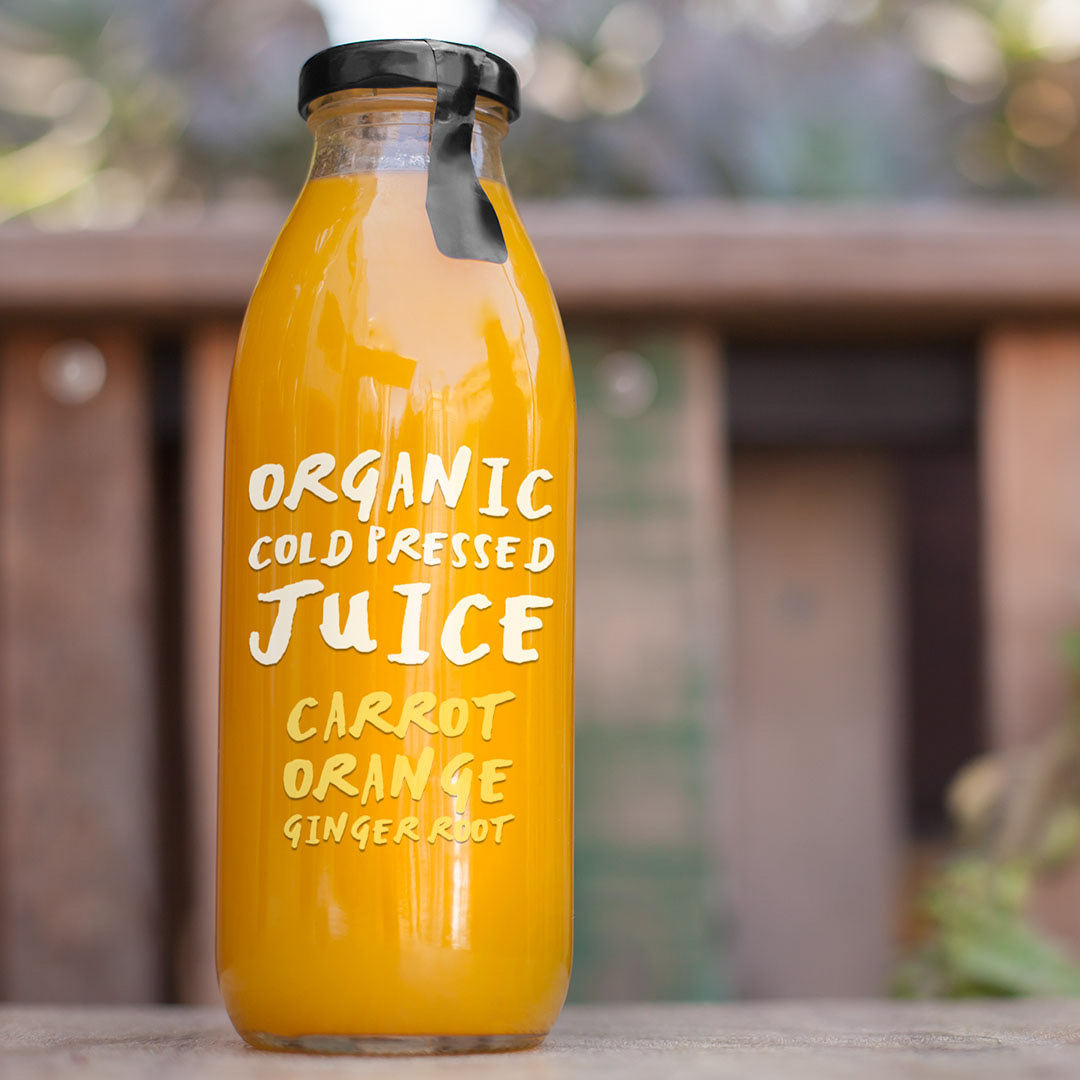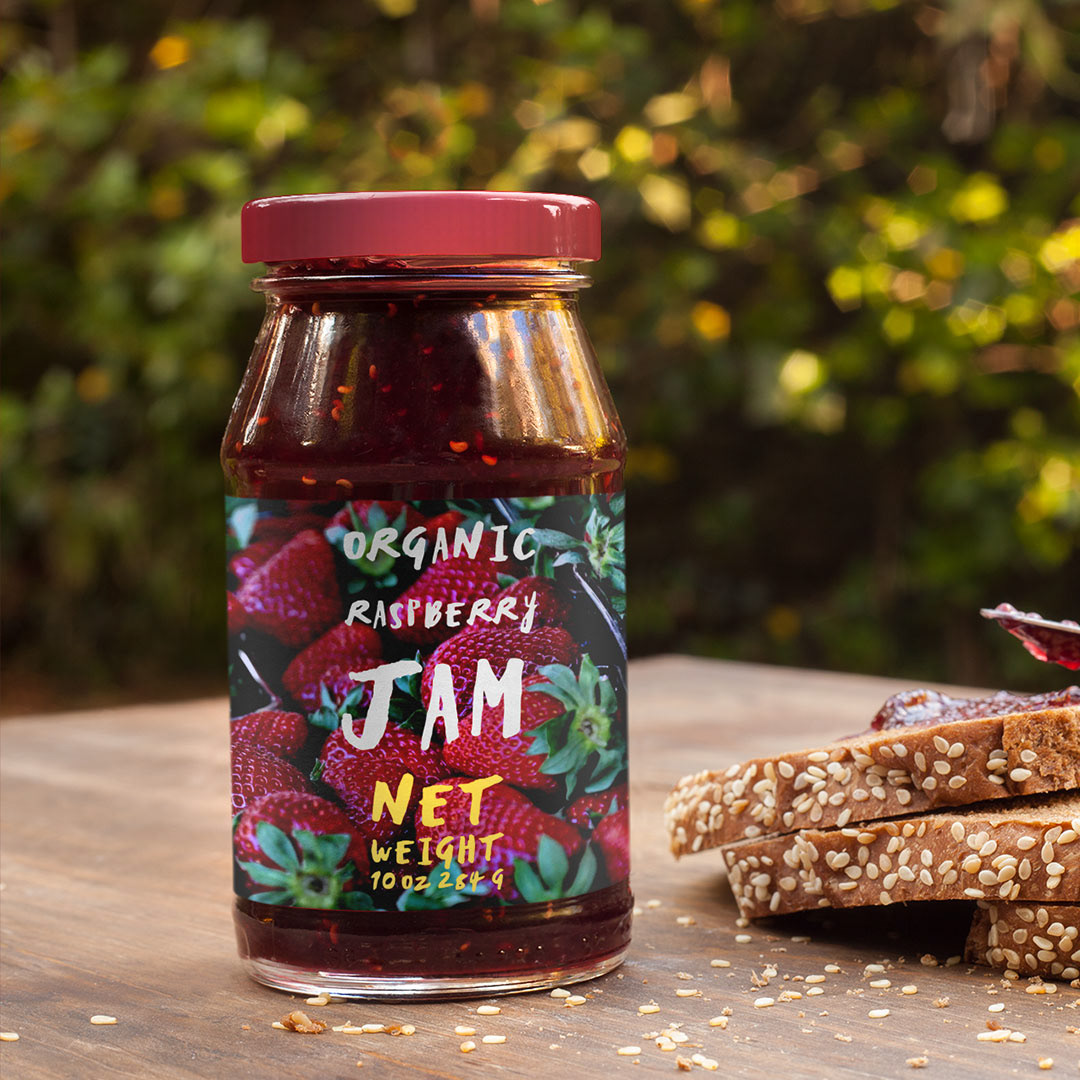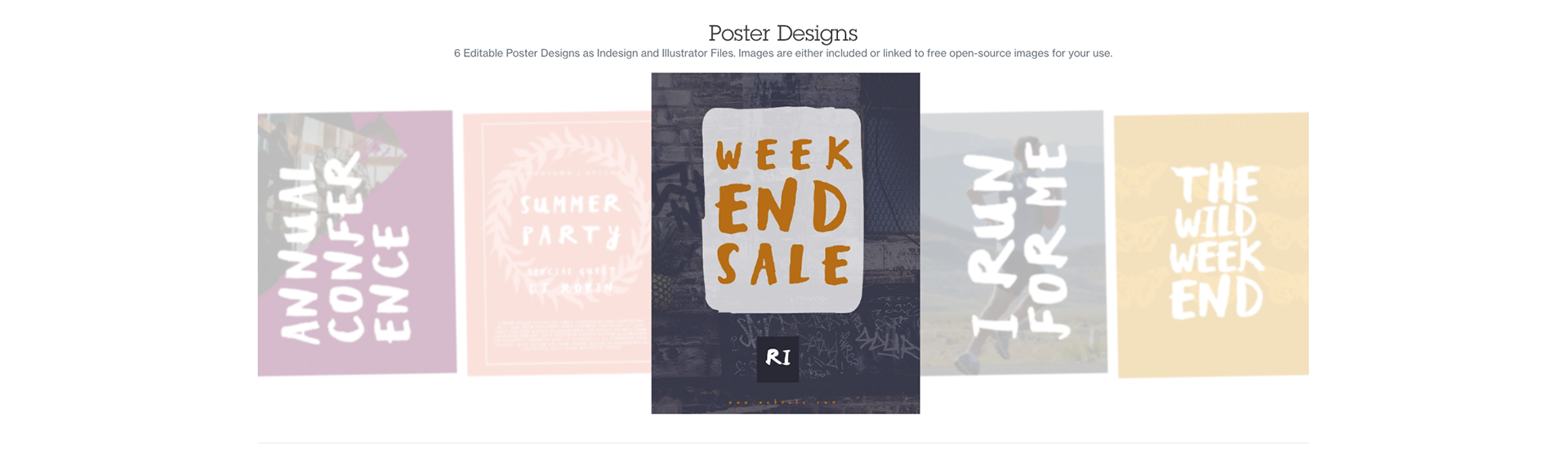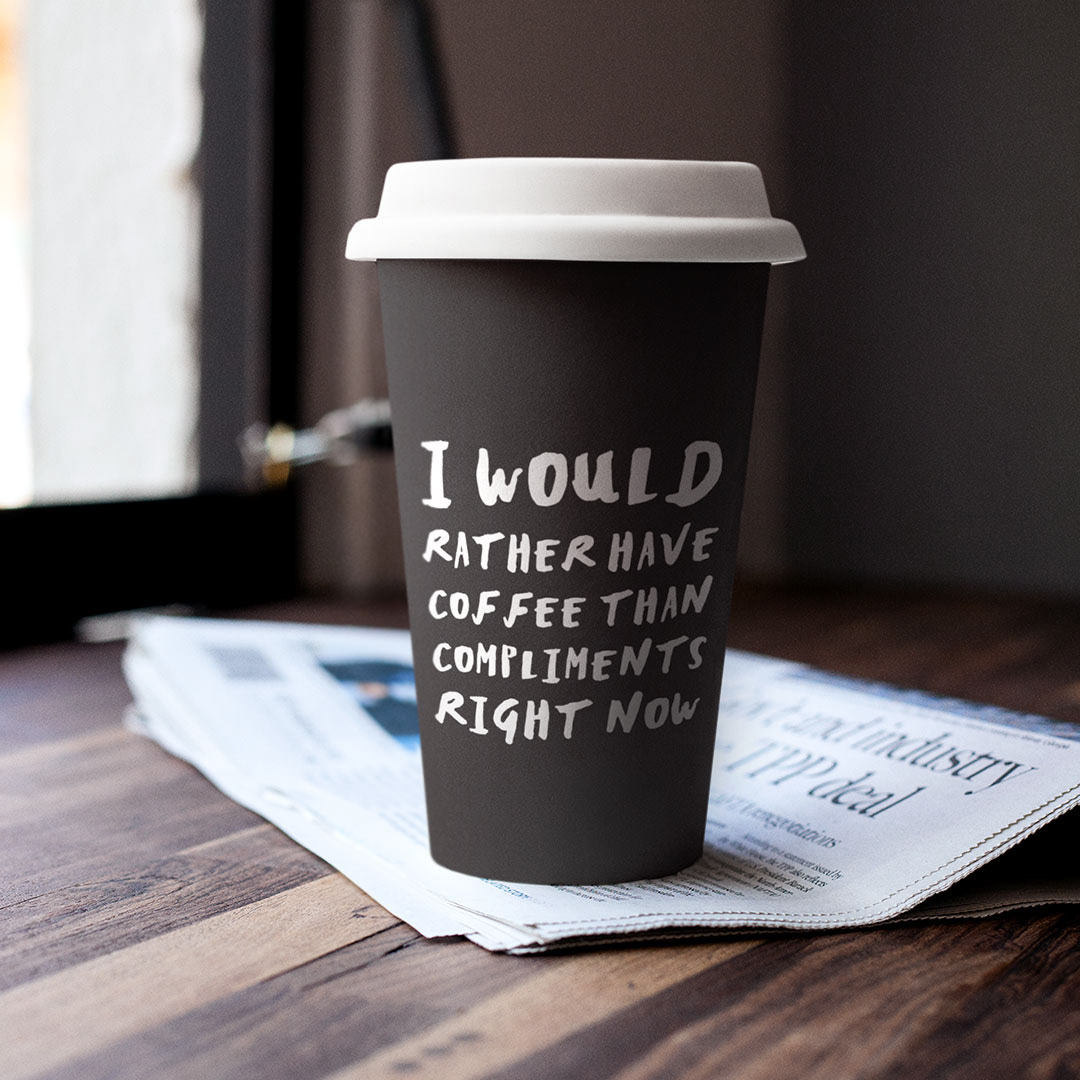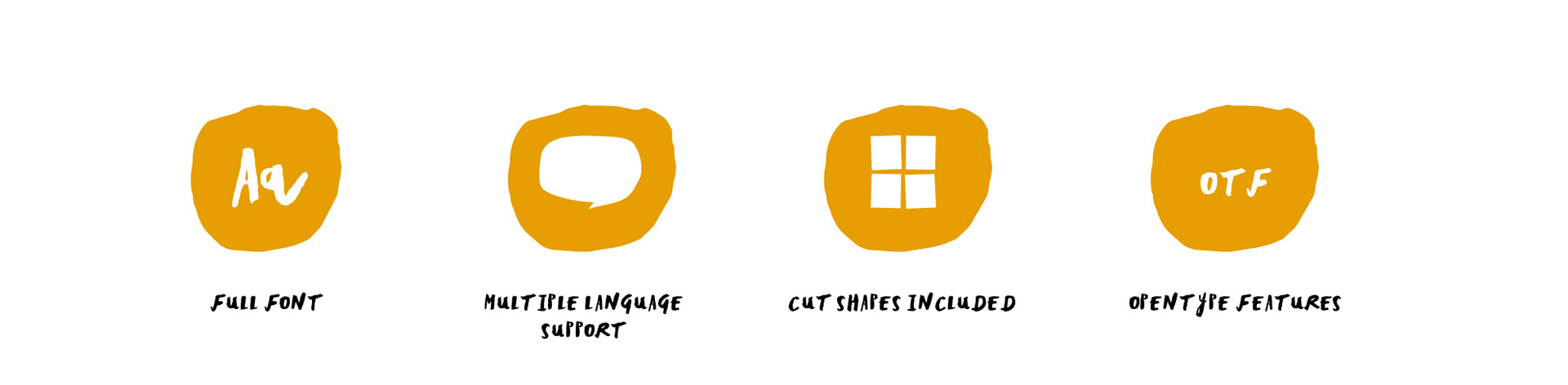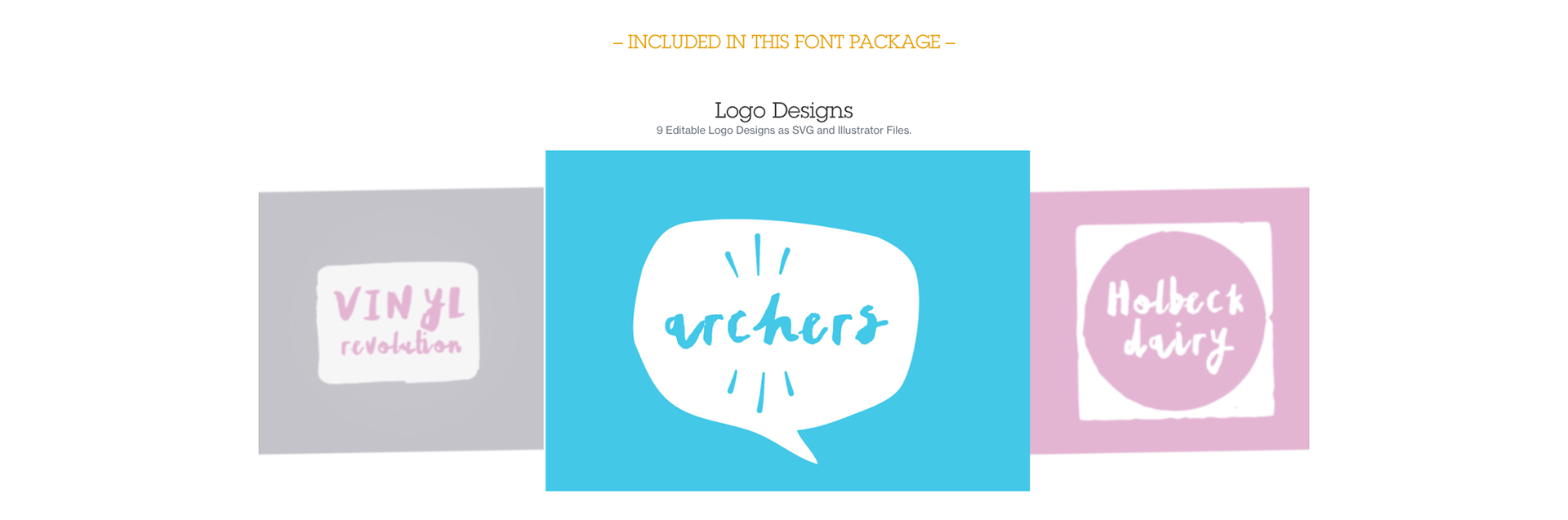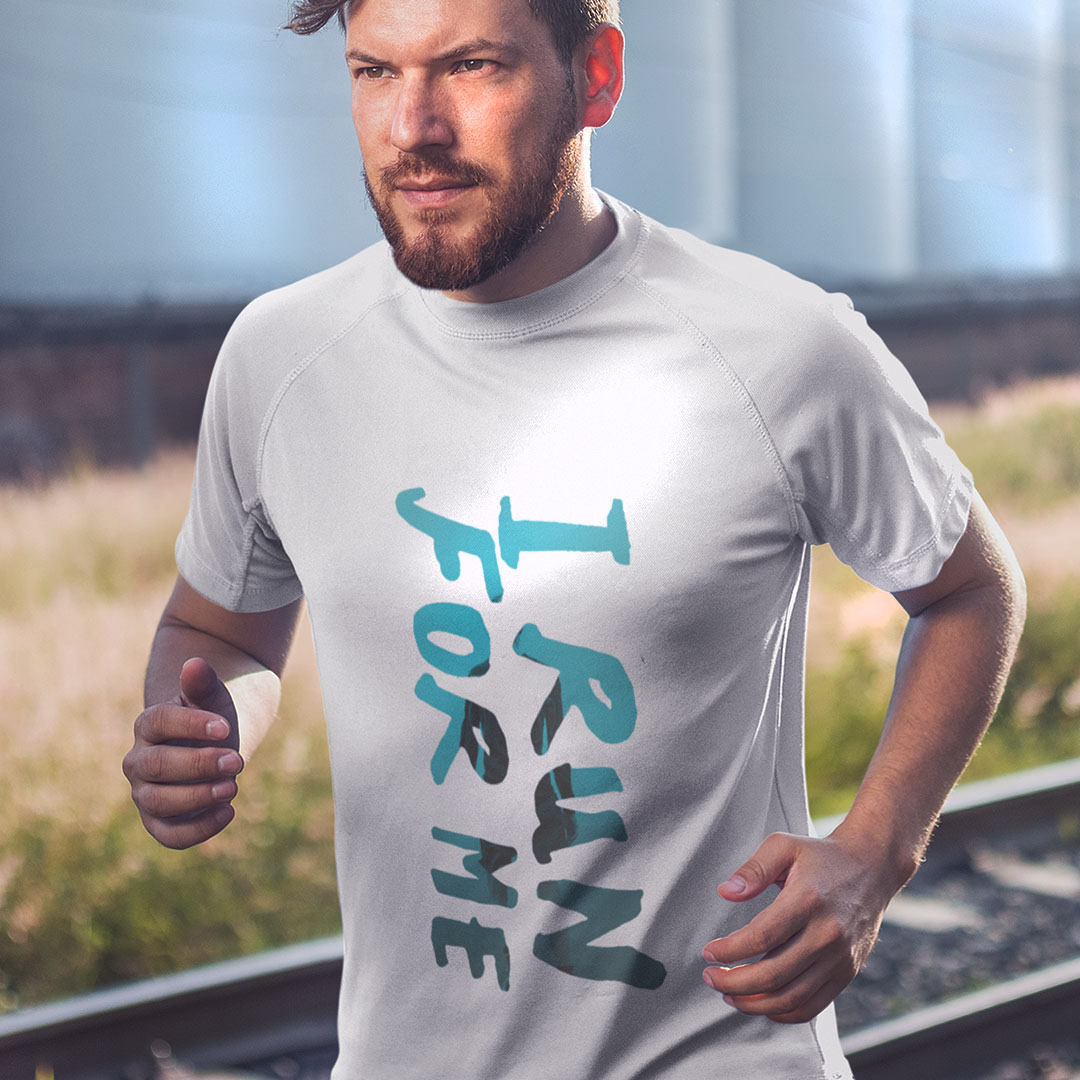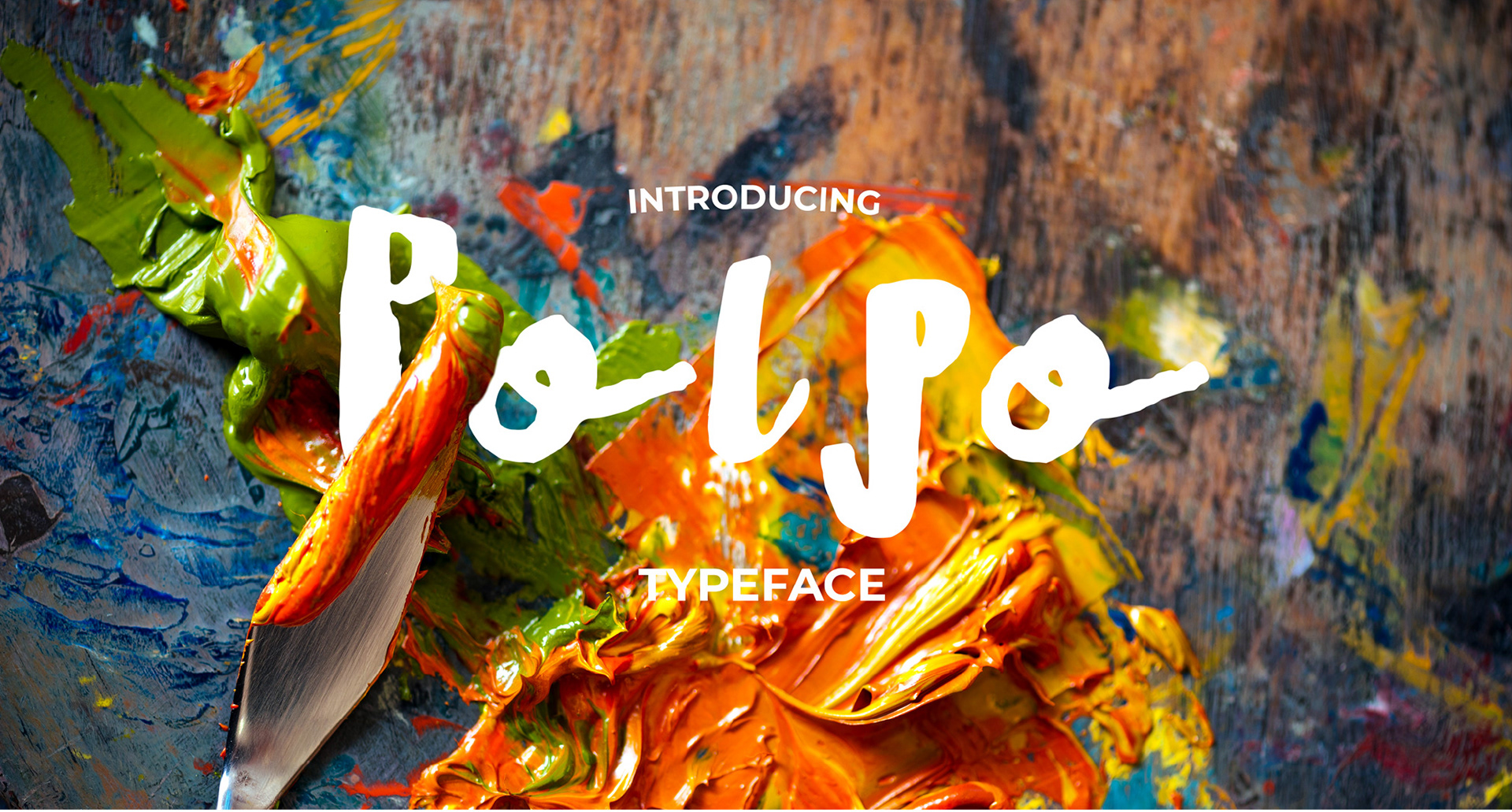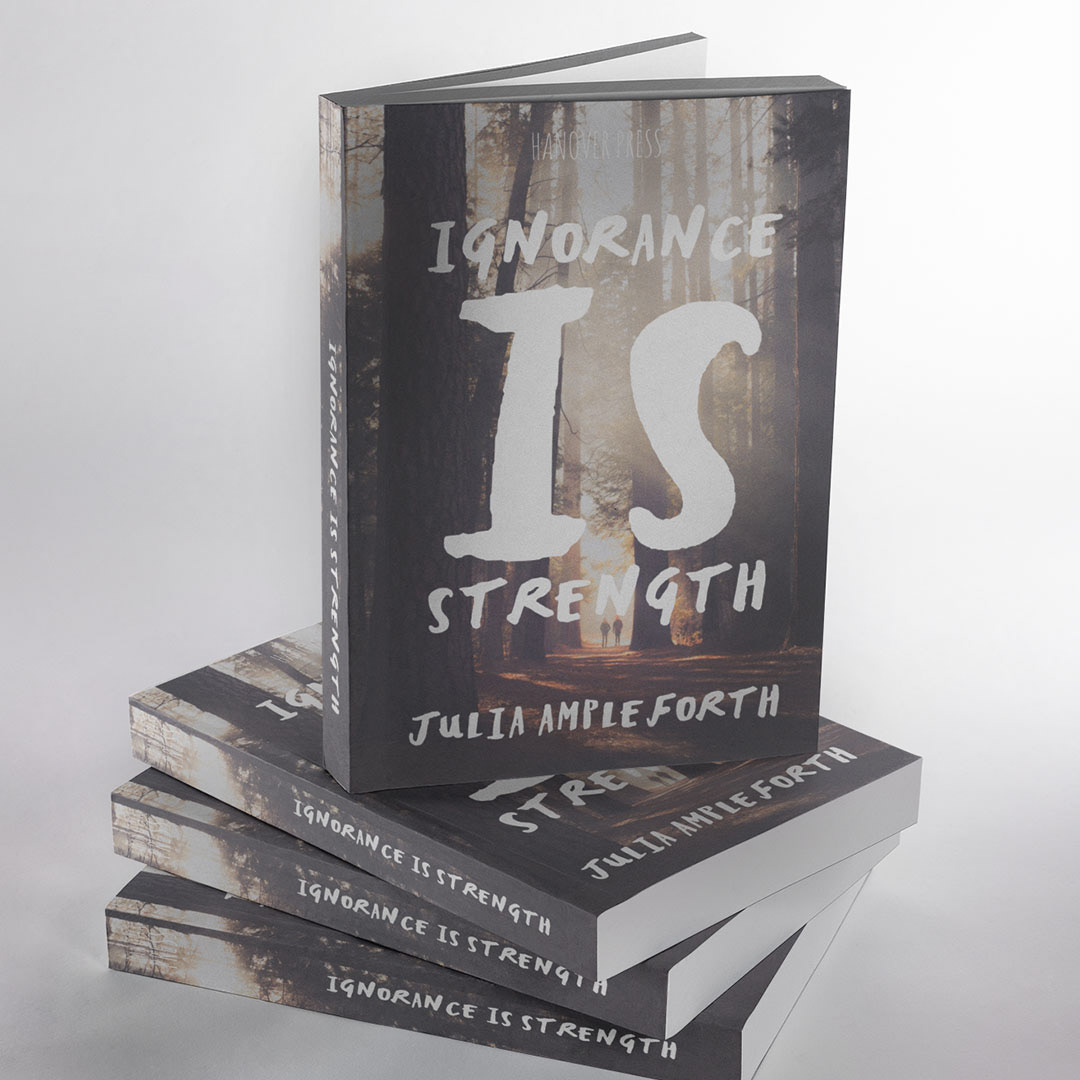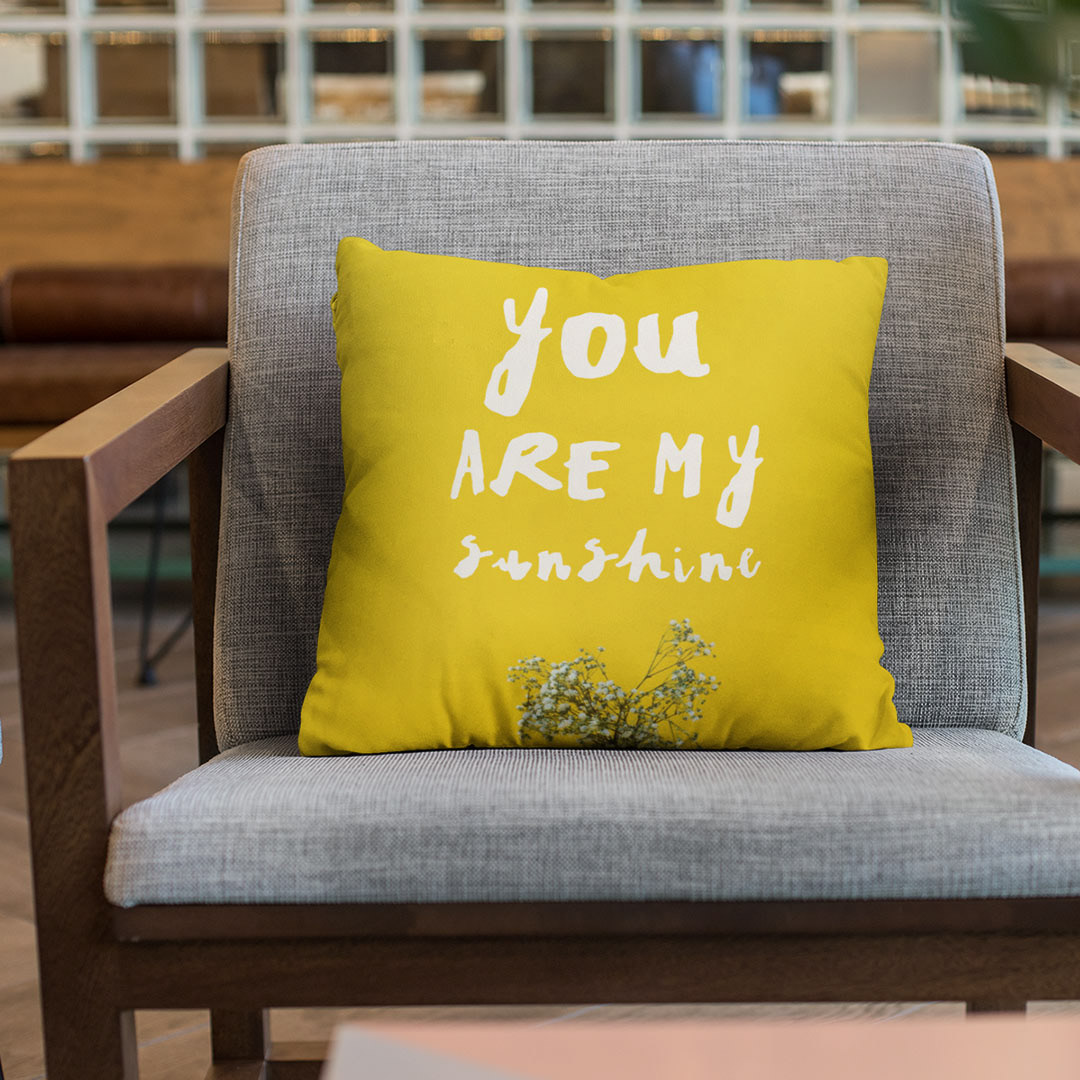
Polpo is a hand drawn ink font, built through play with pen and nib. It has a inky pen handmade feel, and full of quirky personality. Built with lots of opentype features to keep the font fresh, different and individual as the letters. Used for quirky brands that want to stand out, for this that want to grab attention for their personality and tell a story.
Great for T-shirt designs, Headlines, Magazines, and packaging, we have been approached to create custom versions of this font for a well-known food company for their sole use.
Fun to use, and to mix with the range of shapes that have been added along with this font, meaning you can put together one of 1000’s of combinations to create your individual styled design simply and quickly.